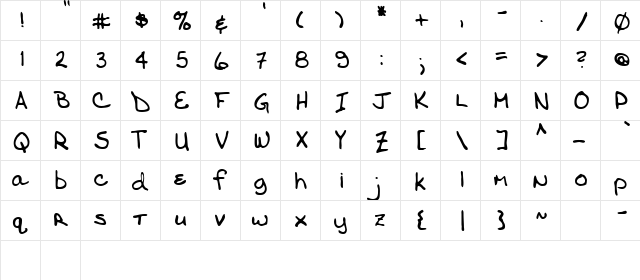
Vanduyn Regular
Design Context for Vanduyn Typeface
Vanduyn takes a measured approach to typography — its balanced proportions and neutral character make it a reliable workhorse for both digital and print work.